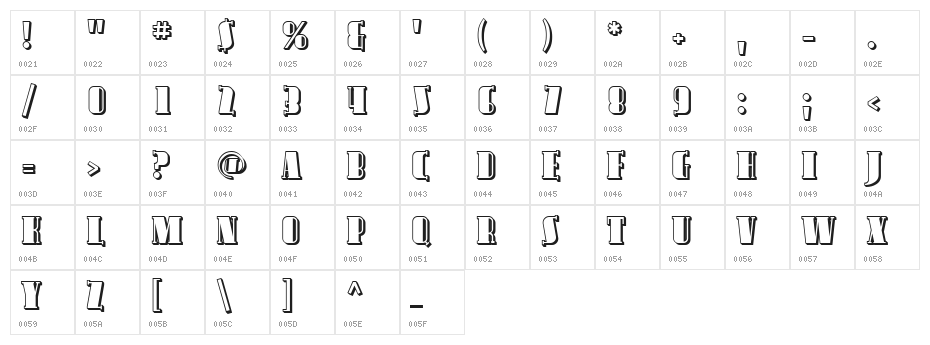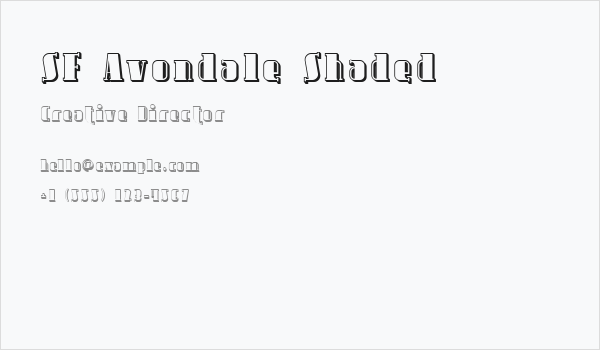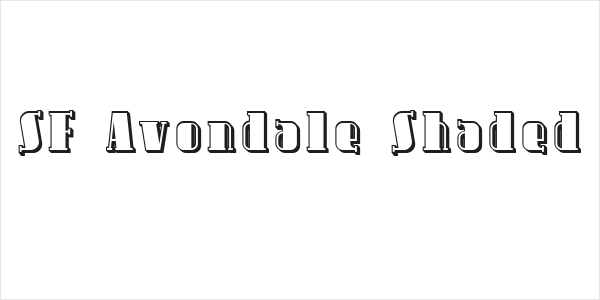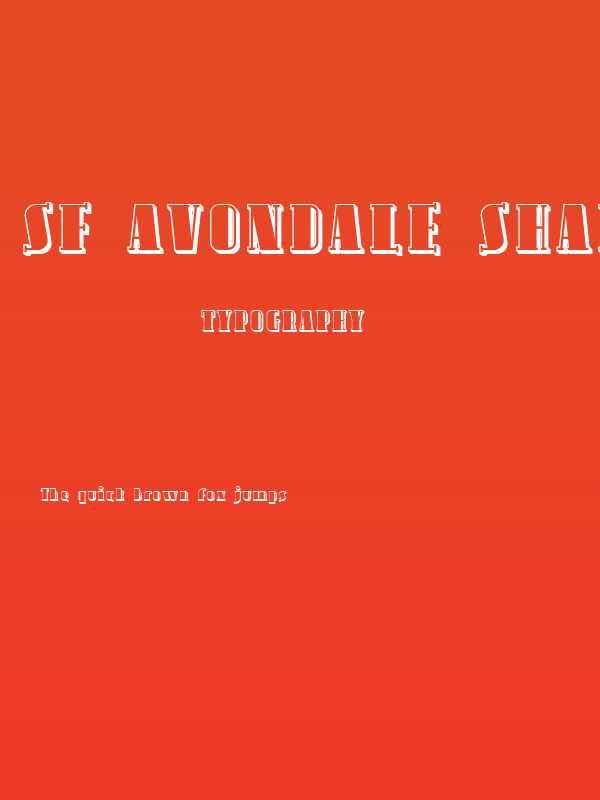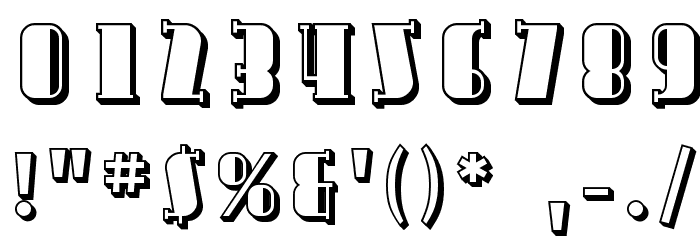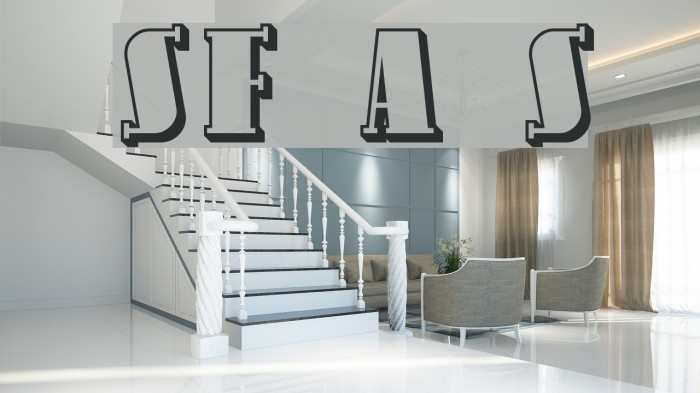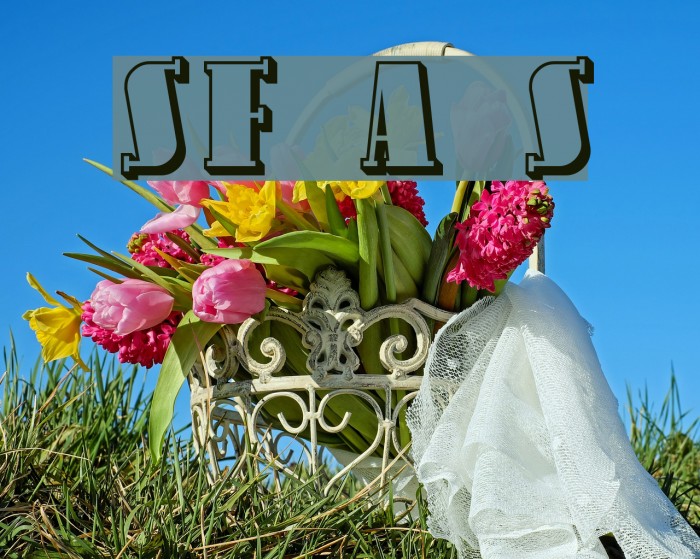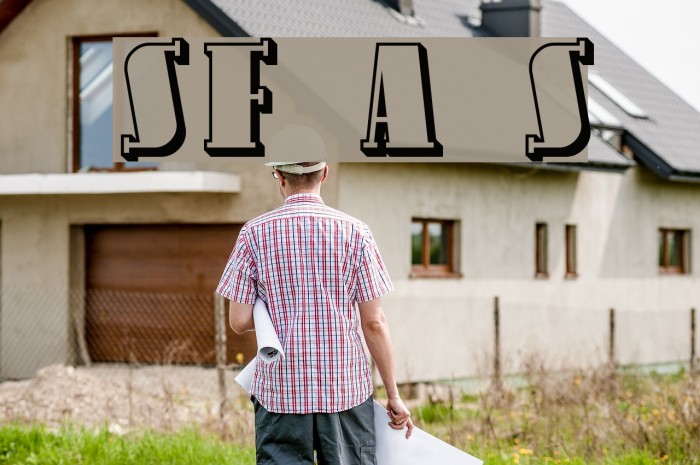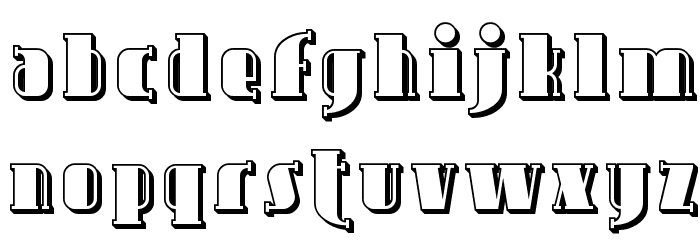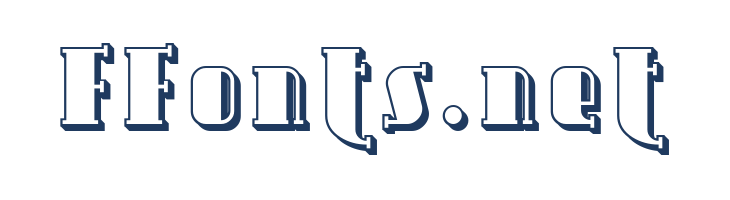
SF Avondale Shaded Font
This font features a bold, decorative style with a unique shaded effect that gives it a three-dimensional appearance. The uppercase letters are particularly striking, with strong vertical lines and subtle curves that create a sense of depth. The lowercase letters maintain this boldness, offering a consistent look across text. Numbers and special characters are designed with the same attention to detail, making them stand out in any design. The font's overall aesthetic is both vintage and modern, making it versatile for various design projects.
| Overall Style | Vintage, Modern |
| Proposed Projects | Ideal for posters, logos, headlines, and any design requiring a bold, eye-catching typeface. |